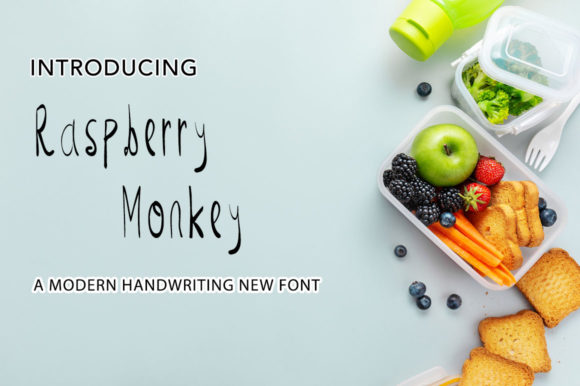
Feast your eyes on Raspberry Monkey Font, the playful and charming script font that will add a touch of whimsy to your creative projects. Let your imagination run wild as you explore the endless possibilities of this captivating font. With its delightfully casual handwritten style, Raspberry Monkey Font is perfect for adding a personal touch to wedding invitations, stationary art, and social media posts. The sky's the limit with Raspberry Monkey Font!
Dive into a world of creativity and let Raspberry Monkey Font guide you. Its enchanting curves and fluid strokes will make your words dance off the page, capturing the attention of all who lay their eyes upon them. Imagine the joy of your friends and family as they receive wedding invitations adorned with the whimsical charm of Raspberry Monkey Font. Each letter is a work of art, crafted with care and precision to convey a sense of warmth and delight.
Unleash your inner artist and let Raspberry Monkey Font transform your social media presence. Create eye-catching posts that will captivate your followers and make your content stand out from the crowd. With its playful personality, Raspberry Monkey Font will add a touch of magic to your online interactions, leaving a lasting impression on all who encounter it.
Raspberry Monkey Font is more than just a font; it's an invitation to express yourself creatively and make a statement. Whether you're creating wedding invitations, stationary art, or social media posts, Raspberry Monkey Font will elevate your projects to new heights of beauty and charm. Say goodbye to ordinary fonts and embrace the extraordinary with Raspberry Monkey Font.
"Raspberry Monkey Font is a game-changer. It's the perfect blend of playful and elegant, and it adds a touch of magic to everything I create." - Sarah J.
"I'm obsessed with Raspberry Monkey Font! It's so versatile and easy to use. I love how it makes my social media posts pop." - Jessica K.
"Raspberry Monkey Font is a lifesaver for wedding invitations. It's so charming and unique, and it makes my invitations look like they were professionally designed." - Amanda W.